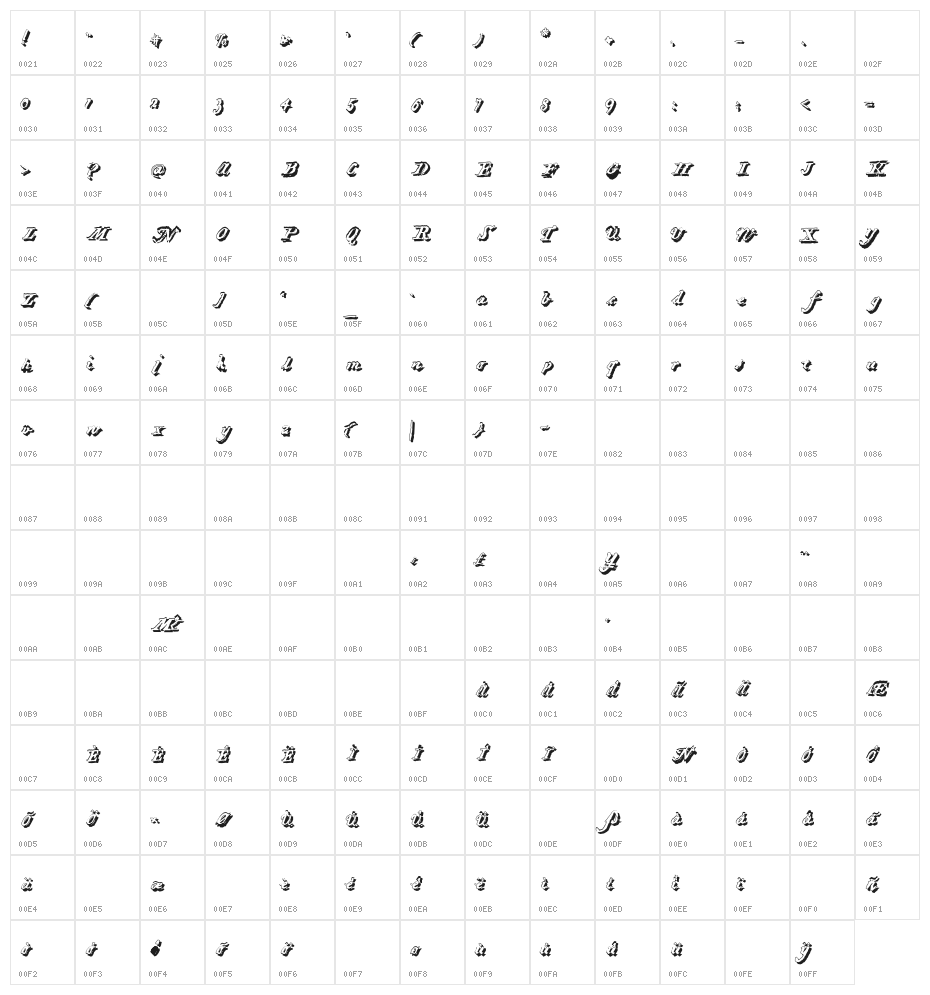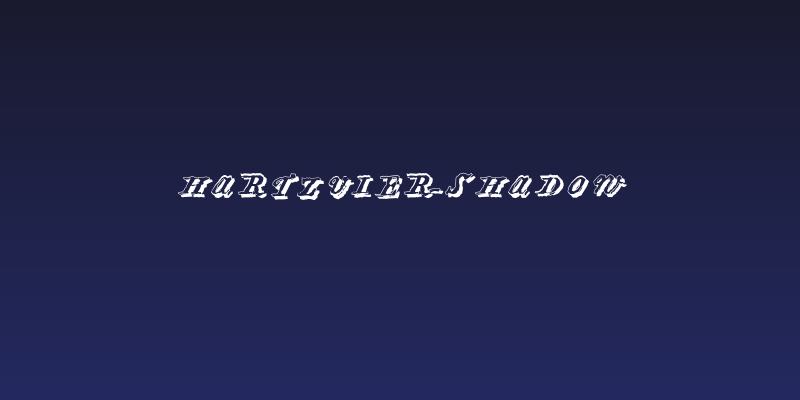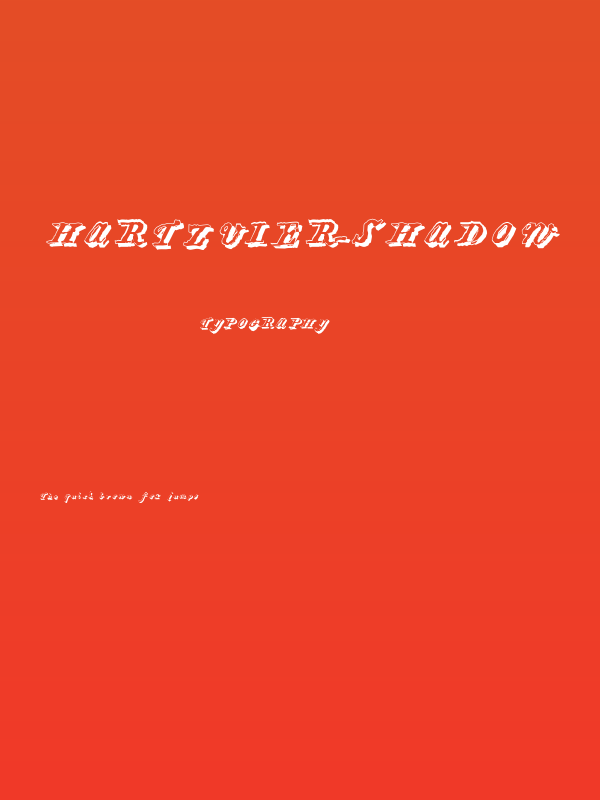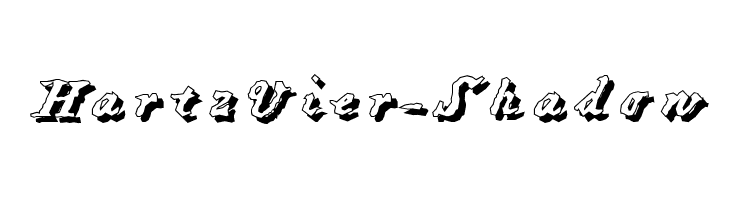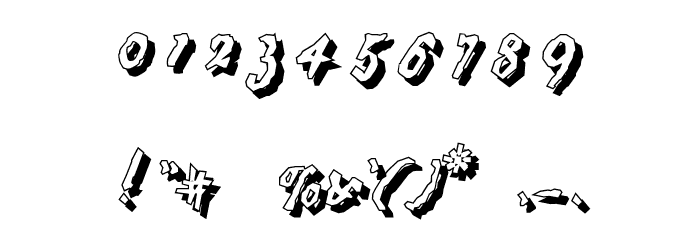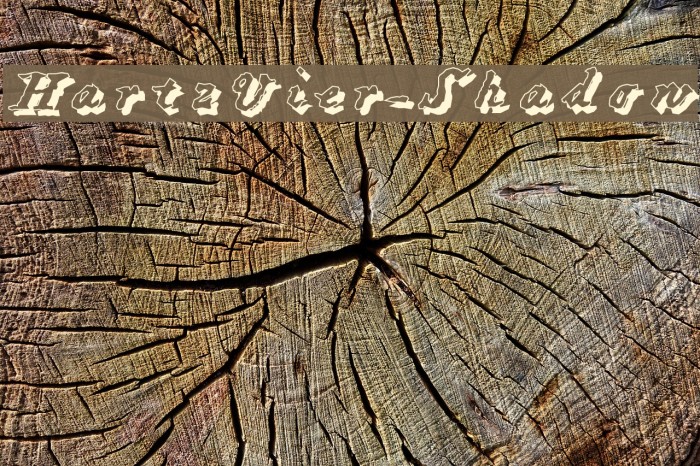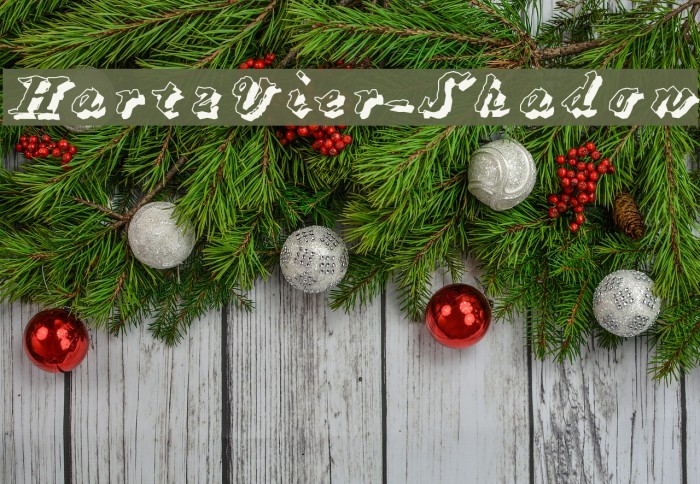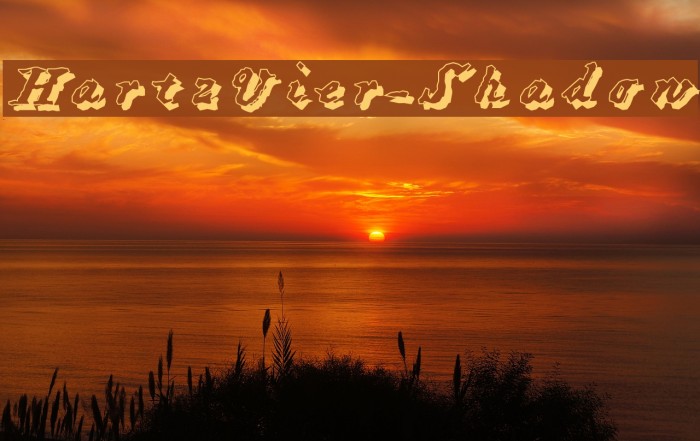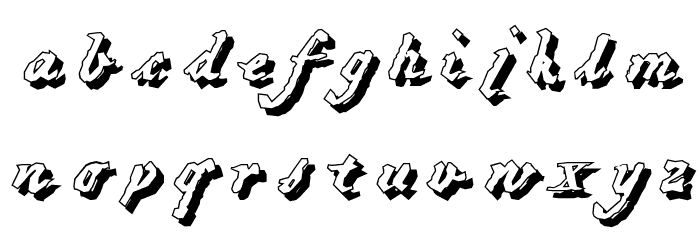
HartzVier-Shadow Font
HartzVier-Shadow Description
This font features a bold, shadowed style with a strong presence. The characters are designed with a distinct three-dimensional effect, giving them a striking appearance. Each letter is crafted with a combination of sharp edges and smooth curves, creating a dynamic and energetic look. The uppercase and lowercase letters maintain a consistent style, while the numbers and special characters complement the overall design. The shadow effect adds depth and dimension, making the text stand out prominently.